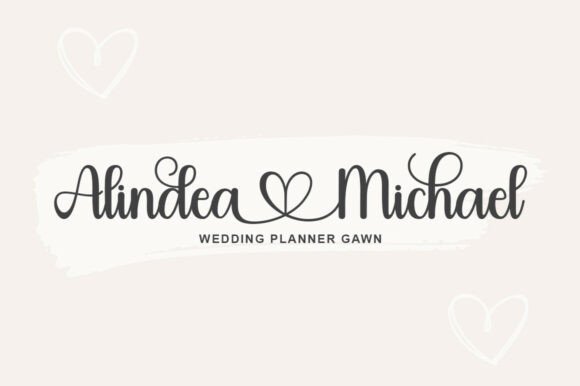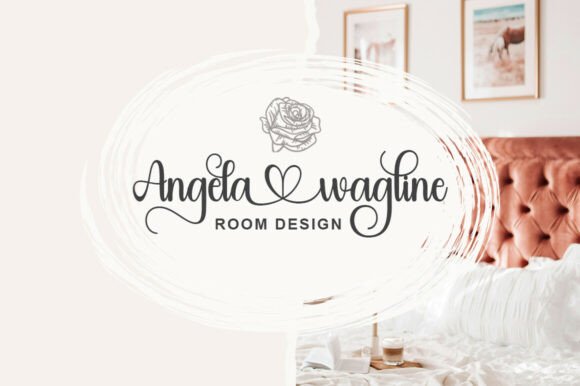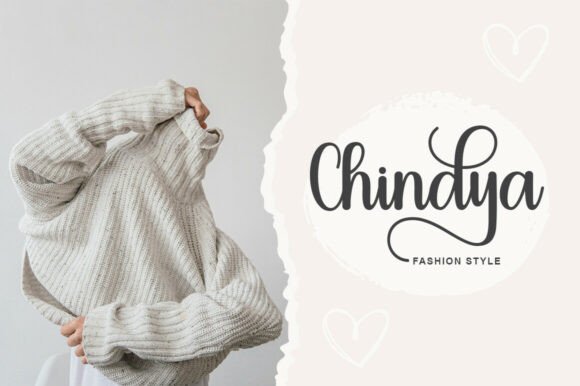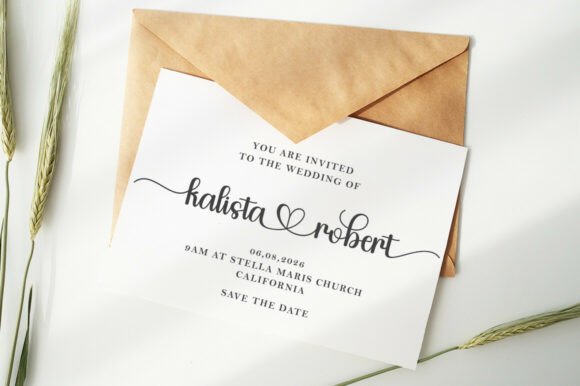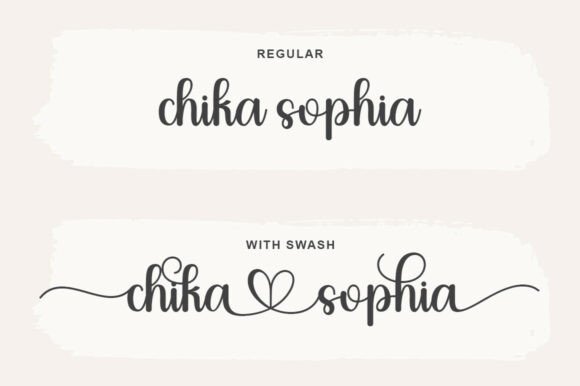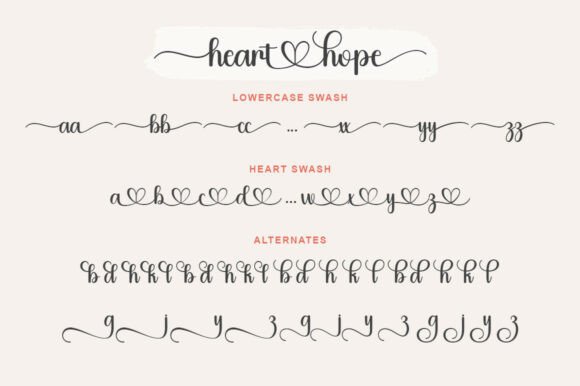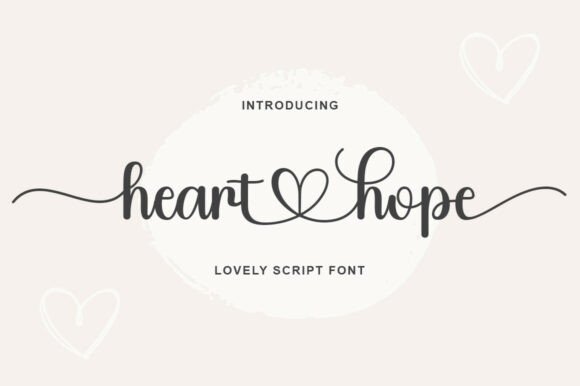
Elevate Your Wedding and Branding Projects with the Enchanting Heart Hope Font
Are you searching for a font that embodies the essence of romance, elegance, and refinement? Look no further than the captivating Heart Hope Font. This exquisite script font is designed to seamlessly blend sophistication and love, making it the perfect choice for wedding invitations, heartfelt messages, and distinctive logo branding.
A Font that Speaks to the Heart
The Heart Hope Font is more than just a collection of letters; it’s an artistic expression of love and connection. Its delicate and flowing lines evoke feelings of warmth and sincerity, making it an ideal choice for couples looking to create stunning wedding materials that reflect their special day. Whether you’re crafting a wedding invitation, a heartfelt message, or a beautiful logo, this font is sure to leave a lasting impression.
Perfect for Wedding Projects
Wedding planning is an exciting and romantic journey, and the right font can make all the difference in bringing your vision to life. The Heart Hope Font is specifically designed to add a touch of elegance and sophistication to your wedding projects. Imagine creating wedding invitations that set the tone for your special day, with intricate details and beautiful swashes that make your guests feel loved and appreciated.
With the Heart Hope Font, you can:
- Create breathtaking wedding invitations that leave a lasting impression
- Design heartfelt messages and love letters that speak directly to the heart
- Develop beautiful wedding stationery, such as place cards, menus, and programs
Ideal for Branding and Logo Design
But the Heart Hope Font is not just limited to wedding projects. Its unique and captivating design makes it an excellent choice for branding and logo design, particularly for businesses that want to convey a sense of love, care, and connection. Whether you’re launching a new product, service, or company, this font can help you create a distinctive and memorable brand identity.
With the Heart Hope Font, you can:
- Create a stunning logo that captures the essence of your brand
- Develop a consistent visual identity across all your marketing materials
- Add a touch of warmth and personality to your brand’s messaging
What Makes Heart Hope Font Special?
So, what sets the Heart Hope Font apart from other fonts? Here are a few features that make it a standout choice:
- PUA Encoding: The Heart Hope Font is PUA encoded, which means you can access all the glyphs and swashes with ease. This makes it simple to create beautiful and intricate designs that showcase your creativity.
- Elegant and Refined: The font’s delicate lines and flowing curves evoke feelings of elegance and refinement, making it perfect for high-end branding and wedding projects.
- Romantic and Whimsical: The Heart Hope Font has a playful and romantic touch, making it ideal for designs that require a sense of love and connection.
If you’re looking for a font that can elevate your wedding and branding projects to the next level, look no further than the Heart Hope Font. With its enchanting design, elegant lines, and romantic touch, this font is sure to captivate your audience and leave a lasting impression.